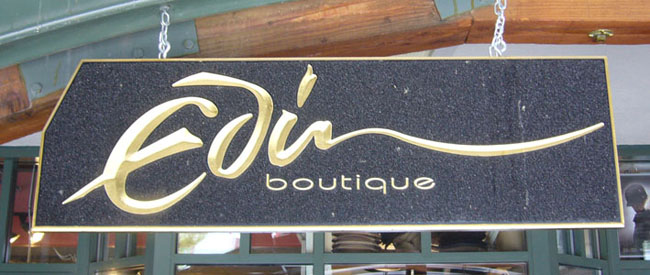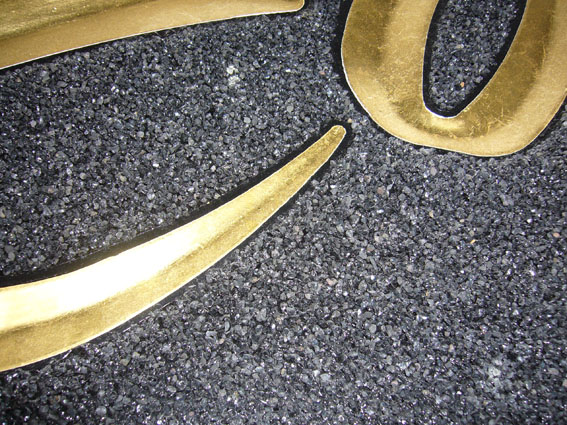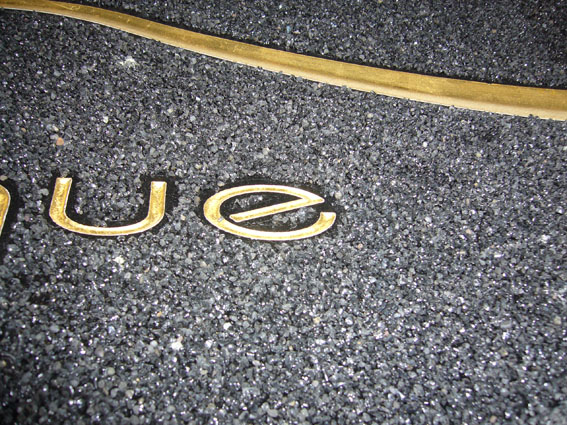
Glue for Smalt/blasting material.
Since there is already a glue post gonig on, I hoped maybe you could answer this question for me.
When I was in Whistler Vancouver Canada, I saw this sign.
I already read about this technique somewhere, but I can not recollect or find where exactly.
Questions:
1) What kind of glue and steps are used to adhere the big black blasting grit?
2) Is it sprayed on or brushed on using a mask to ensure the 3mm black interfall between the gold and grit?
When I was in Whistler Vancouver Canada, I saw this sign.
I already read about this technique somewhere, but I can not recollect or find where exactly.
Questions:
1) What kind of glue and steps are used to adhere the big black blasting grit?
2) Is it sprayed on or brushed on using a mask to ensure the 3mm black interfall between the gold and grit?
Re: Glue for Smalt/blasting material.
Here is an article which should answer your question. http://signweb.com/index.php/channel/8/id/811
I've used smith's cream and the epoxy method and like the epoxy best.
Here is an article which should answer your question. http://signweb.com/index.php/channel/8/id/811
I've used smith's cream and the epoxy method and like the epoxy best.
Re: Glue for Smalt/blasting material.
I like to use Hold Fast Smalt Glue. It's thick, like honey, and is mixed with about 1/3 volume of OneShot lettering enamel, the same color as the smalt. I brush it on, then using one of those shaker jars (like the ones at the pizza parlor for the red crushed red peppers), I shake on a heavy layer of the smalt. I then tap the piece all around and shake off the excess. Reapply, tap, and let dry a couple days. Then shake off the excess. It really works good.
Hold Fast Smalt Glue
As for the technique used on that particular sign...I'm really not sure.
I like to use Hold Fast Smalt Glue. It's thick, like honey, and is mixed with about 1/3 volume of OneShot lettering enamel, the same color as the smalt. I brush it on, then using one of those shaker jars (like the ones at the pizza parlor for the red crushed red peppers), I shake on a heavy layer of the smalt. I then tap the piece all around and shake off the excess. Reapply, tap, and let dry a couple days. Then shake off the excess. It really works good.
Hold Fast Smalt Glue
As for the technique used on that particular sign...I'm really not sure.
Must find an alternative glue with the same properties from a Dutch brand.....
What these properties are besides the thickness of honey I do not know, maybe the article jerry mentioned will reveil that.
Must find an alternative glue with the same properties from a Dutch brand.....
What these properties are besides the thickness of honey I do not know, maybe the article jerry mentioned will reveil that.
Here's an article or ducument Rick Glawson wrote:
http://www.theletterheads.com/glawson/osmalto.html
You can also use thick silk screen ink, either enamel or laquer based.
Most pre-mixed sign enamel is too thin, so all the other additives are intended to make the paint thicker.
In the old days, they painted around the lettering with a brush. That required the paint to be thicker than normal, often applied with a fitch or cutter. Most people us a mask now, giving you much more control and the paint can be applied much quicker.
http://www.theletterheads.com/glawson/osmalto.html
You can also use thick silk screen ink, either enamel or laquer based.
Most pre-mixed sign enamel is too thin, so all the other additives are intended to make the paint thicker.
In the old days, they painted around the lettering with a brush. That required the paint to be thicker than normal, often applied with a fitch or cutter. Most people us a mask now, giving you much more control and the paint can be applied much quicker.
This was one of the articles I could not find anymore.
With all this information i must be able to glue some grit without blasting someones head because of falling grit.
This was one of the articles I could not find anymore.
With all this information i must be able to glue some grit without blasting someones head because of falling grit.
Essentially this process is just like pouring glitter over Elmer's glue we all did in grade school.
Also....would do some tests to make sure the marine epoxy will hold to acrylic letters period. I used a plastic bowl whenever I had to mix a larger amount. It wouldn't stick to it. Mike.had a chuckle about the flitters. Used those all the time on show-cards we did for entertainment/hotel bands when Istarted in the sign biz. And no....I'm not telling how long ago that was, although I'm willing to bet the technique itself gives me away.